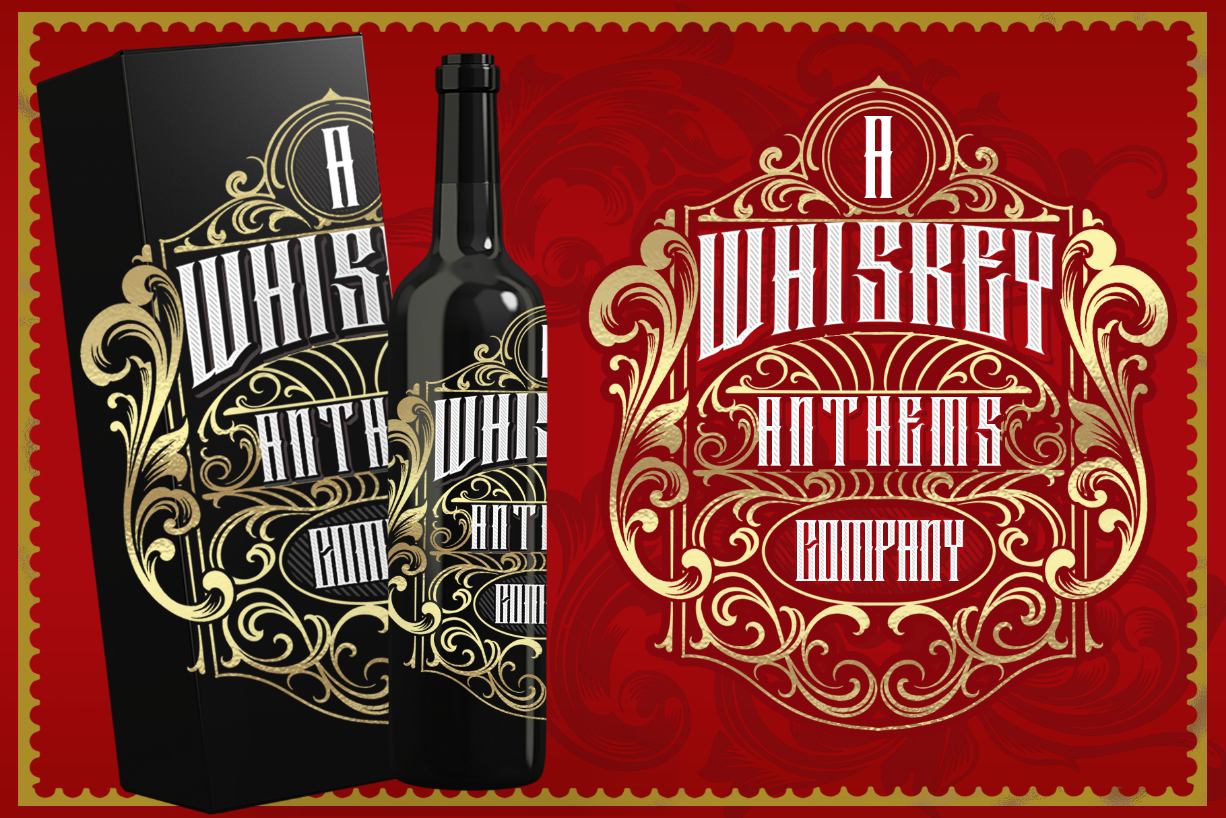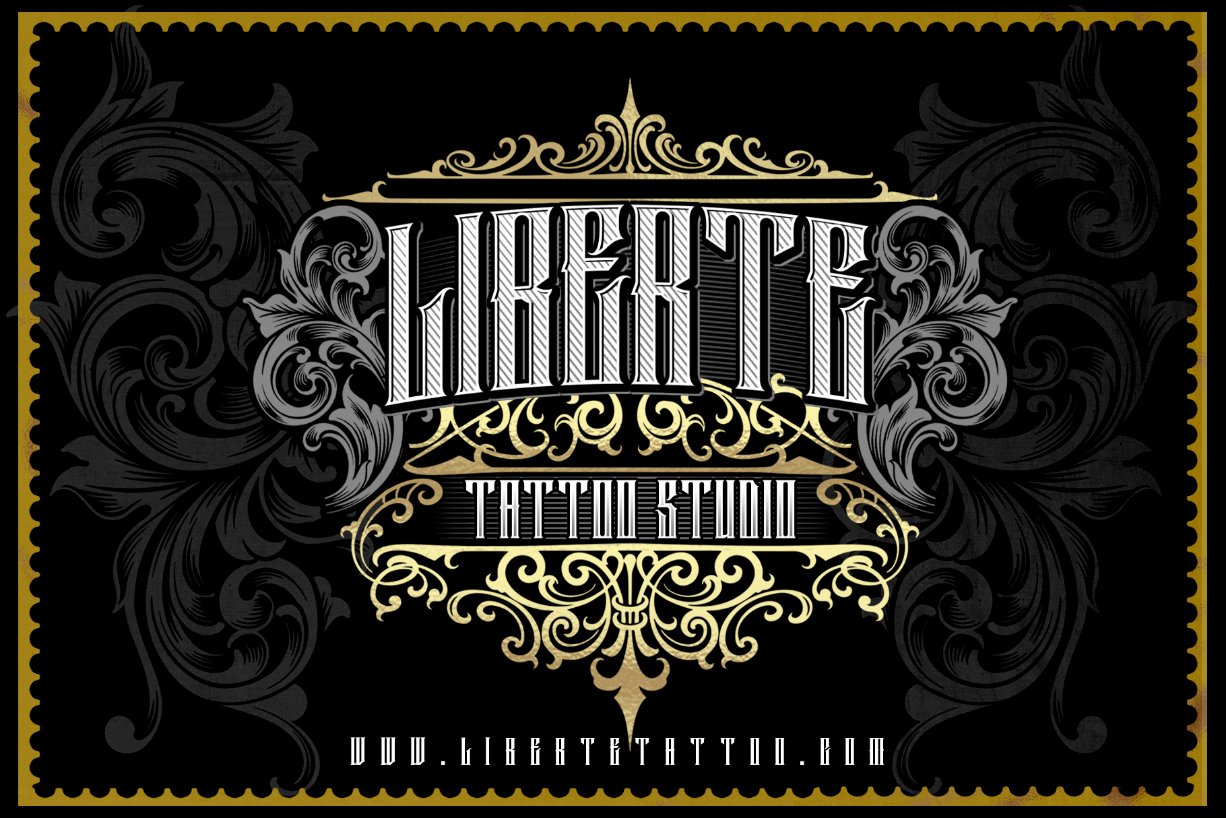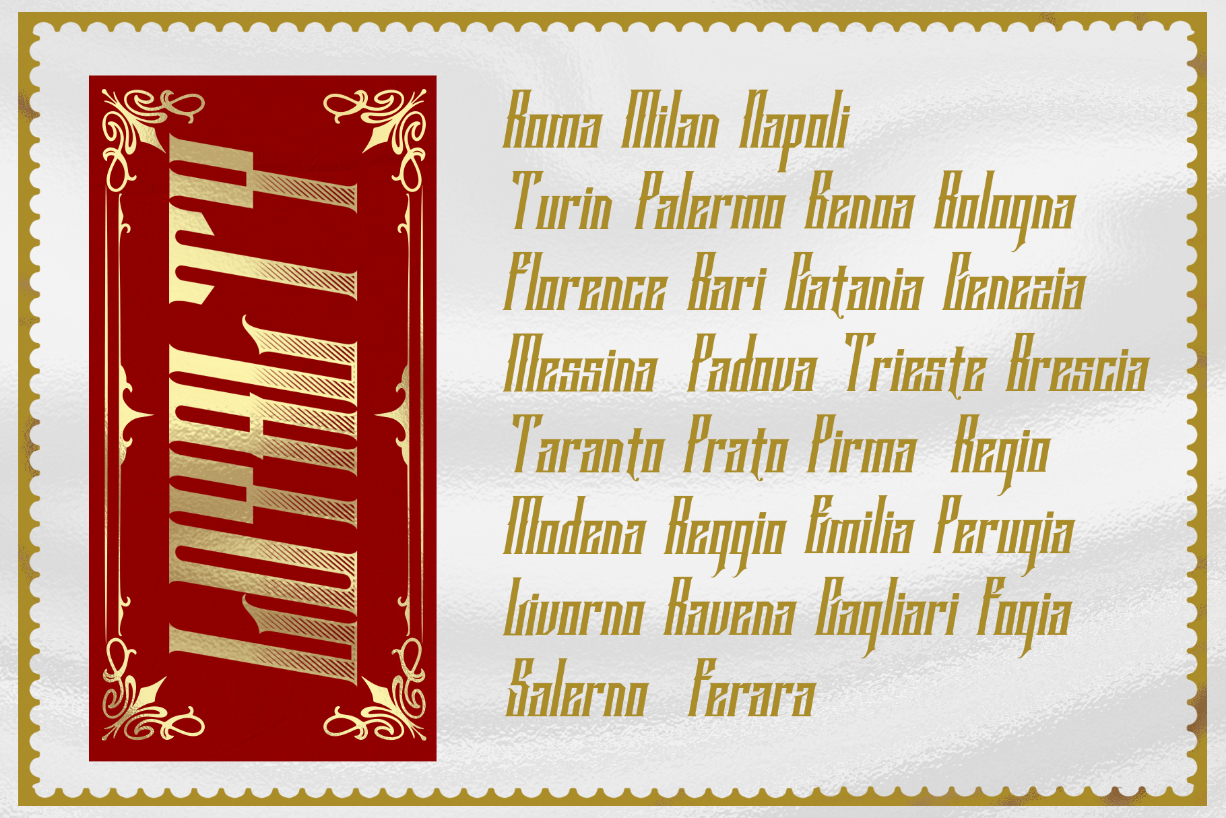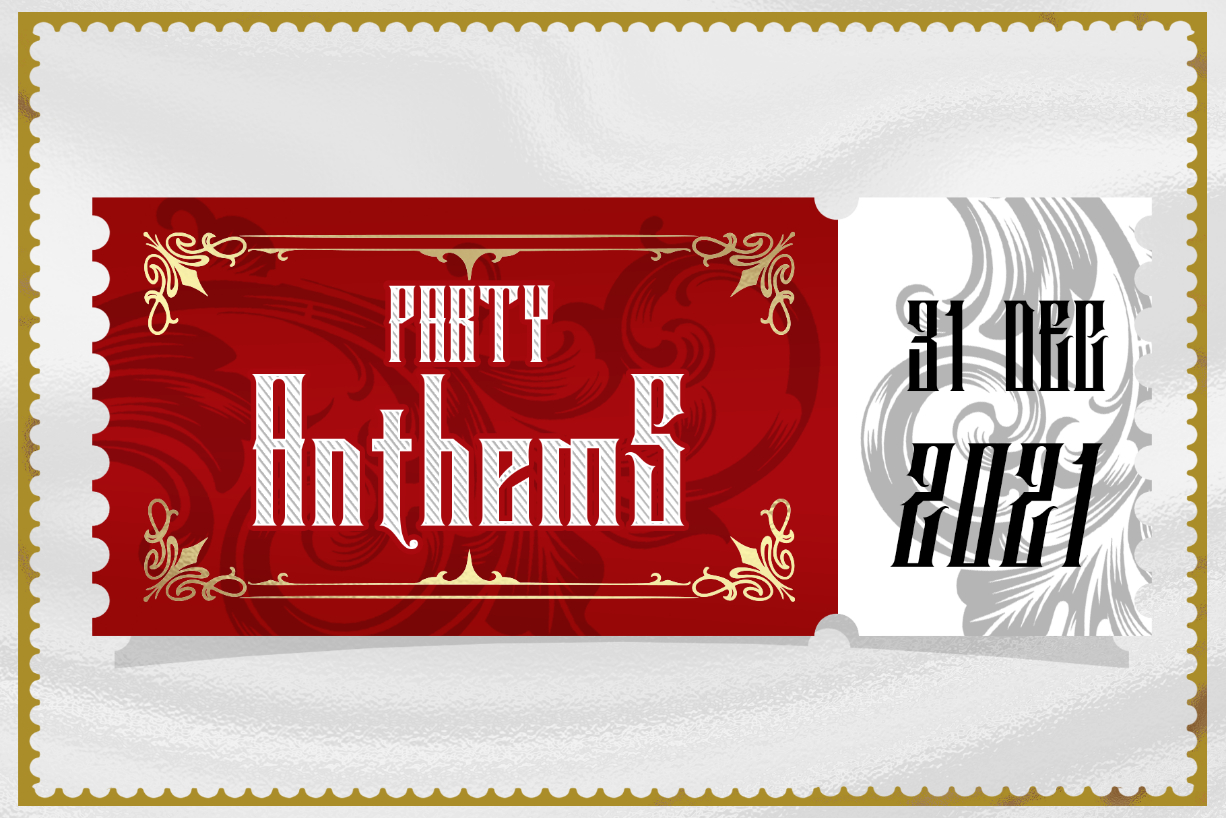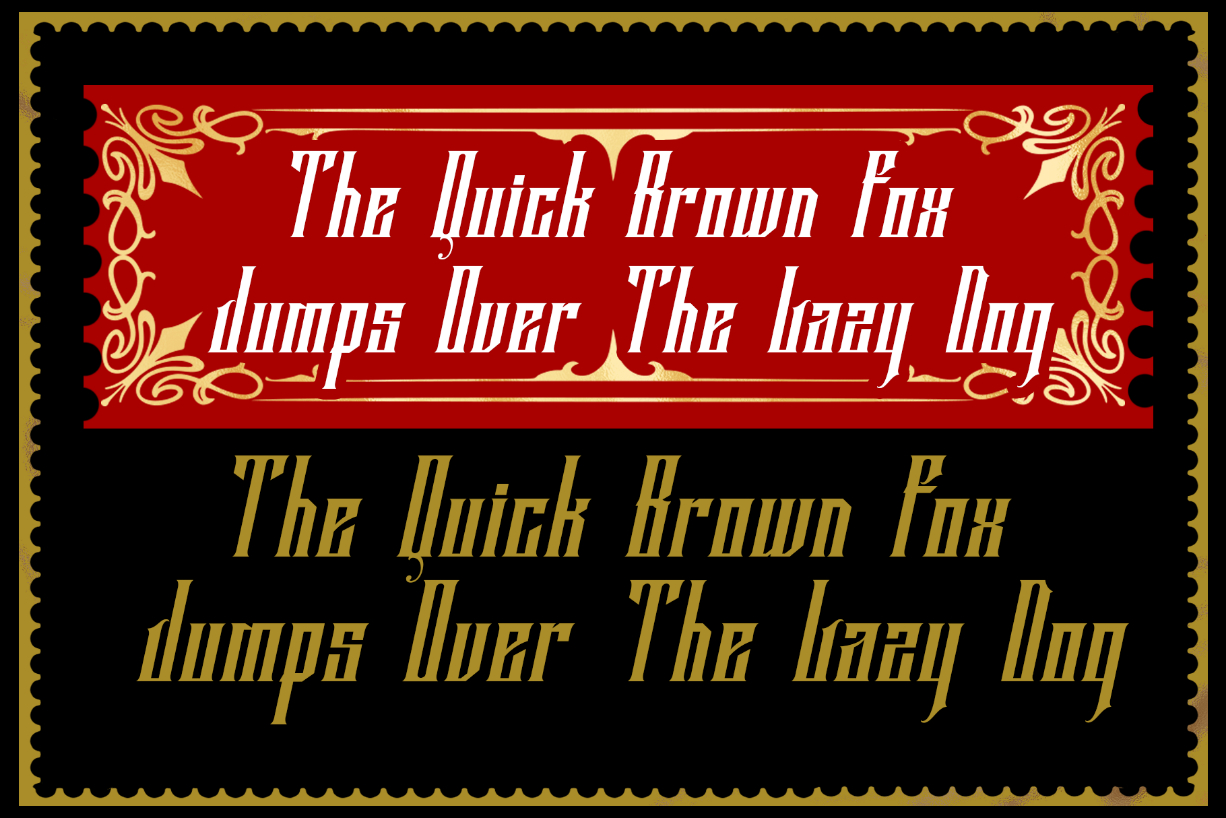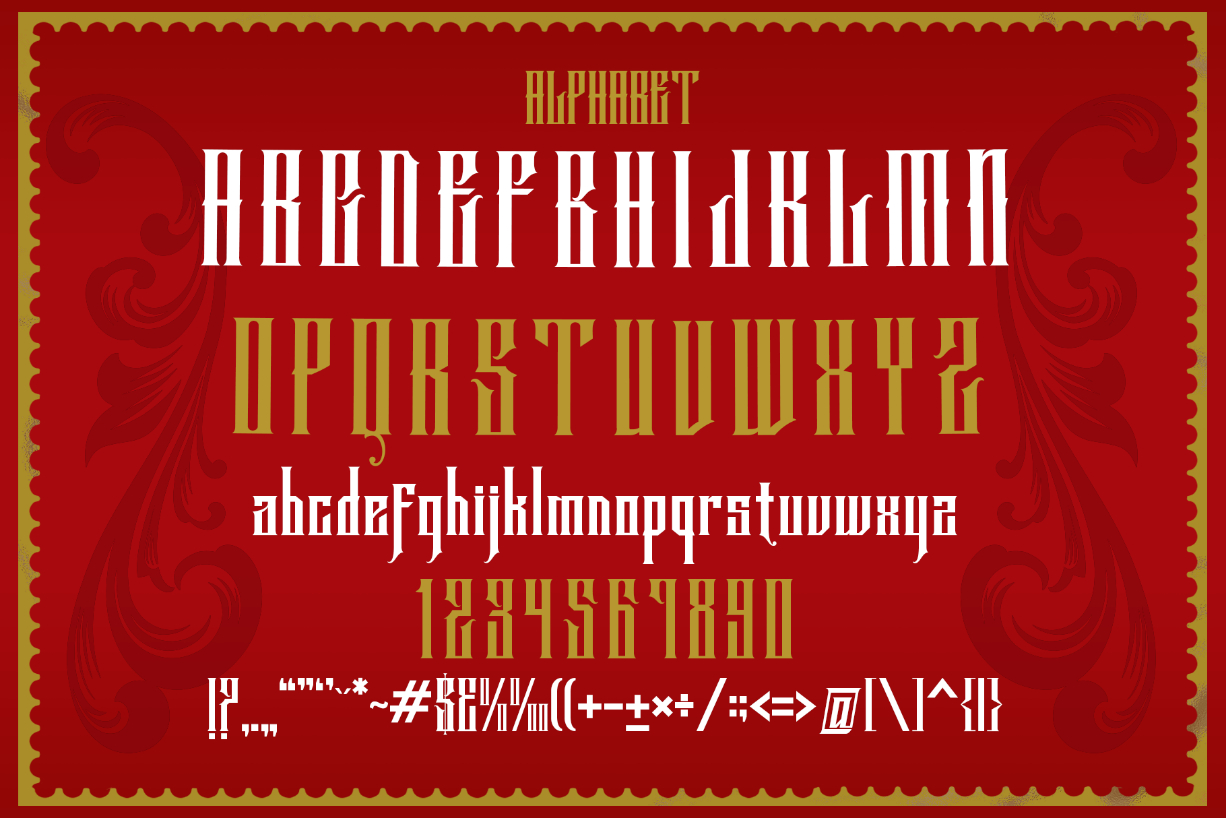
Anthems Font
About Anthems Font
Anthems is a bold, distinct and elegant blackletter font. This font is neatly crafted and highly detailed. Whatever the topic, it will be a wonderful asset to your font library, as it has the potential to enhance any creation.